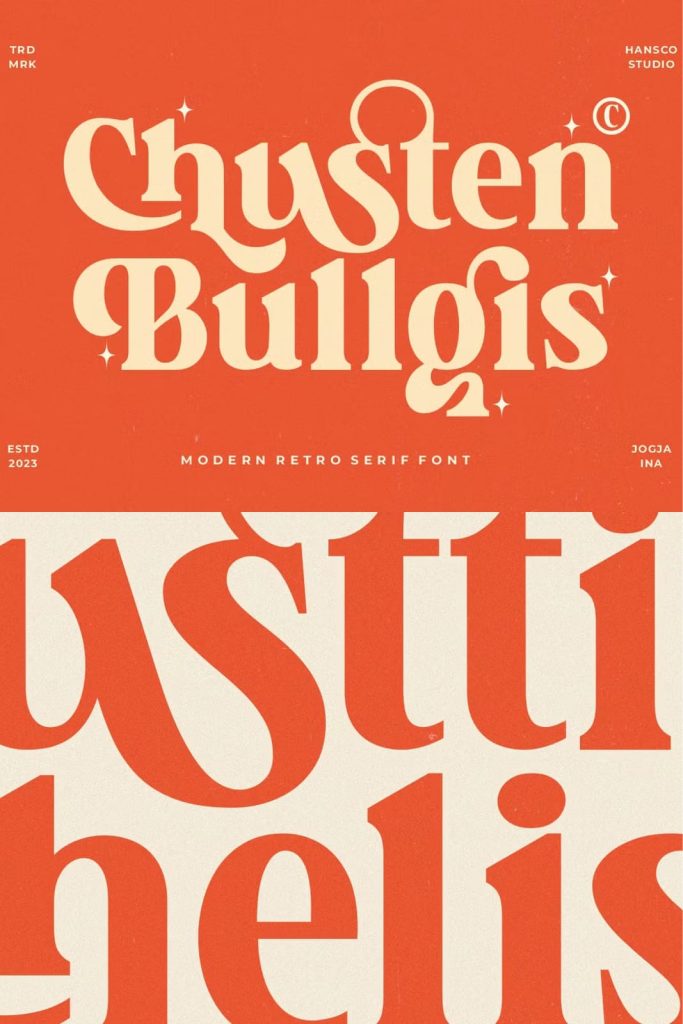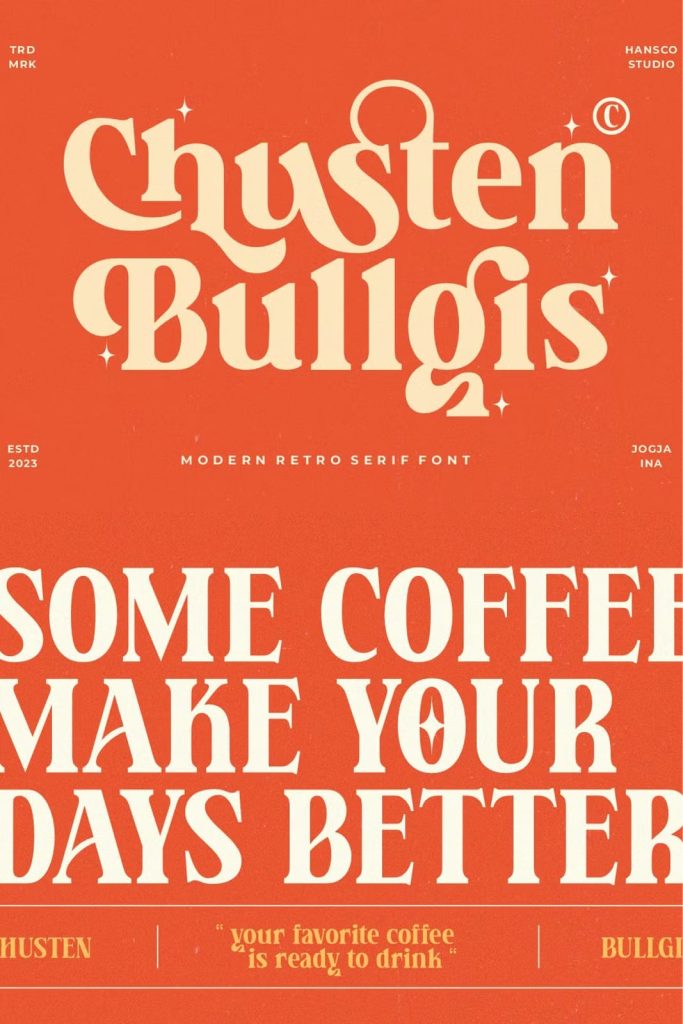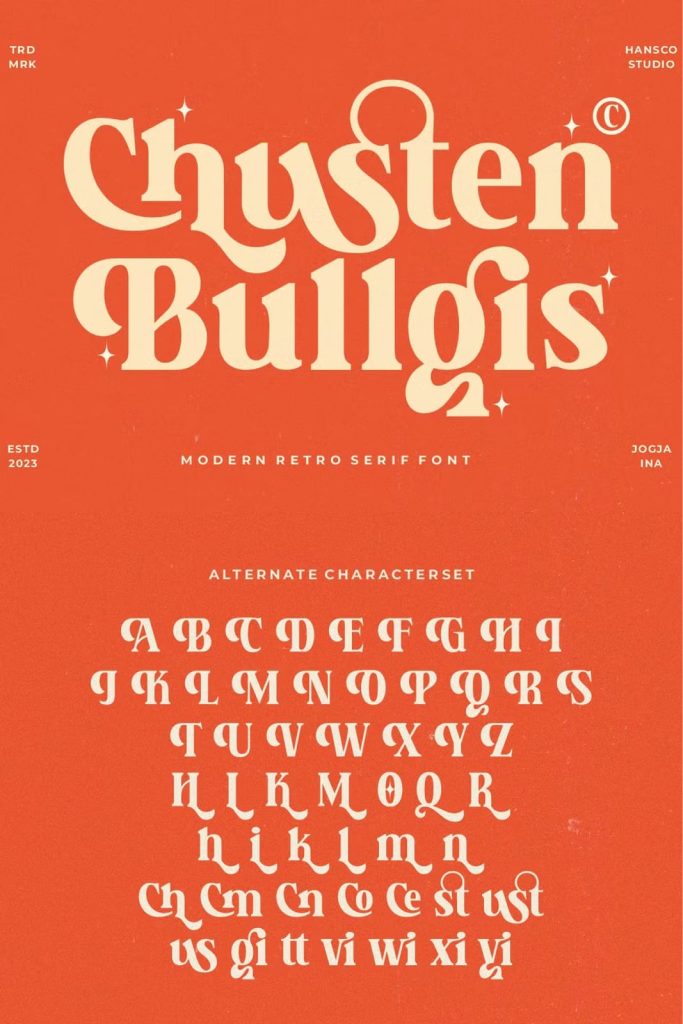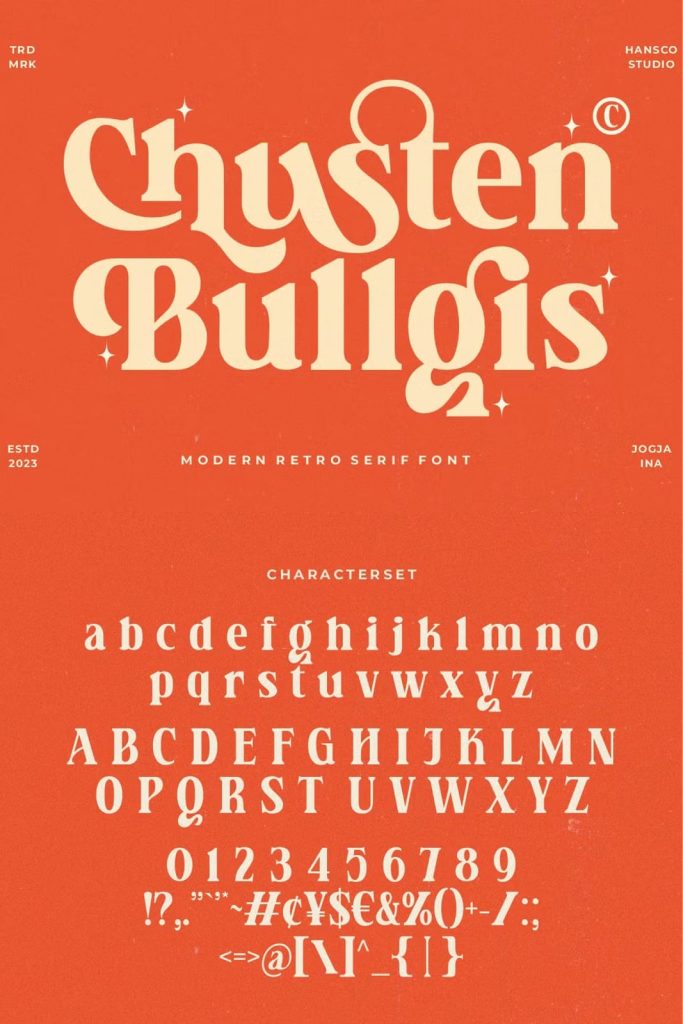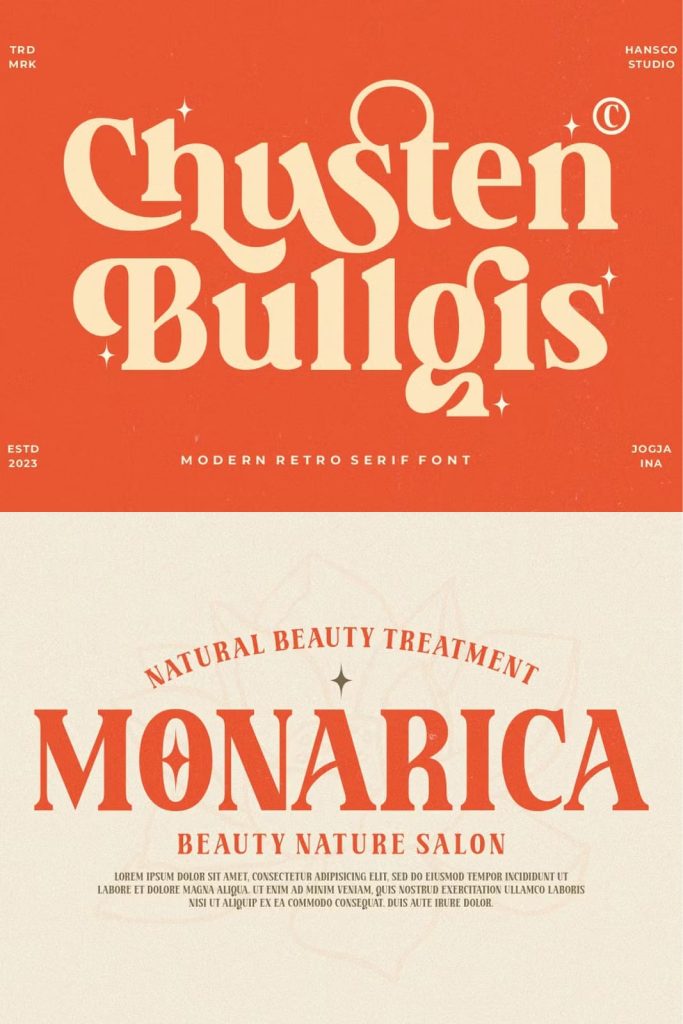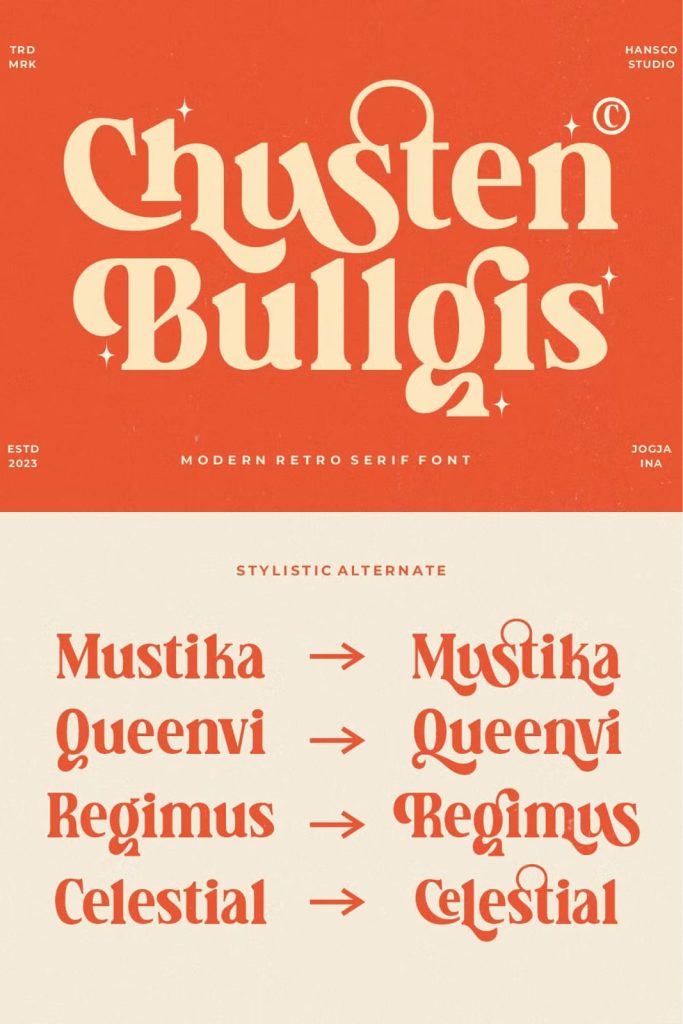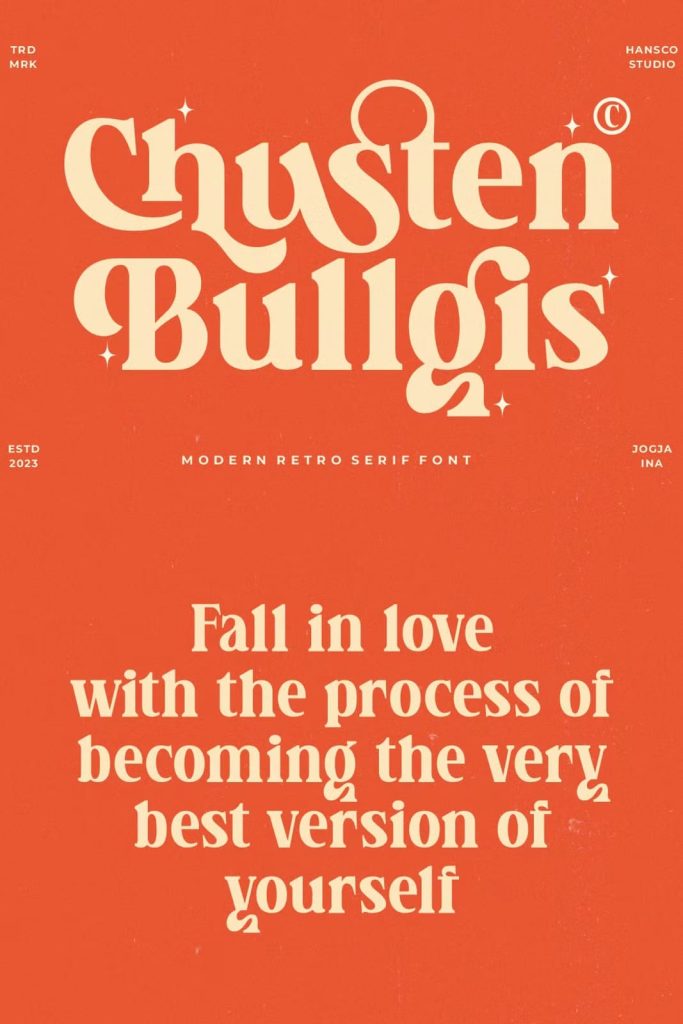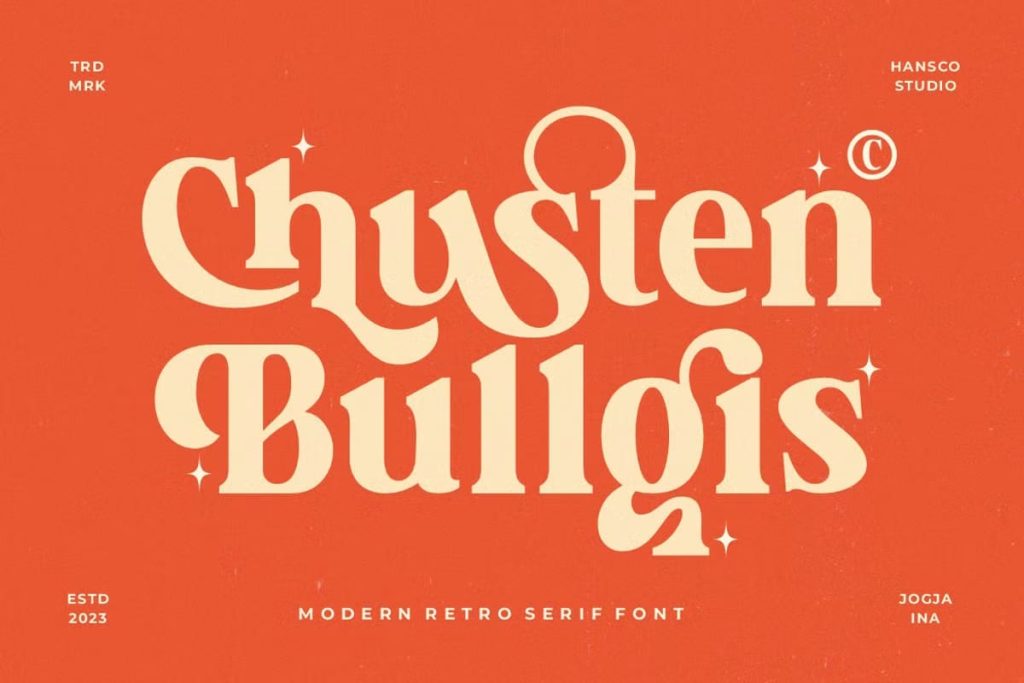
Chusten Bullgis feels playfully nostalgic and delivers an incredible retro vintage aesthetic font. Use this retro serif font to add that special retro touch to any design idea you can think of!
Masterfully designed to become a true favorite, this font has the potential to bring each of your creative ideas to the highest level!. This font is PUA encoded which means you can access all of the glyphs and swashes with ease!